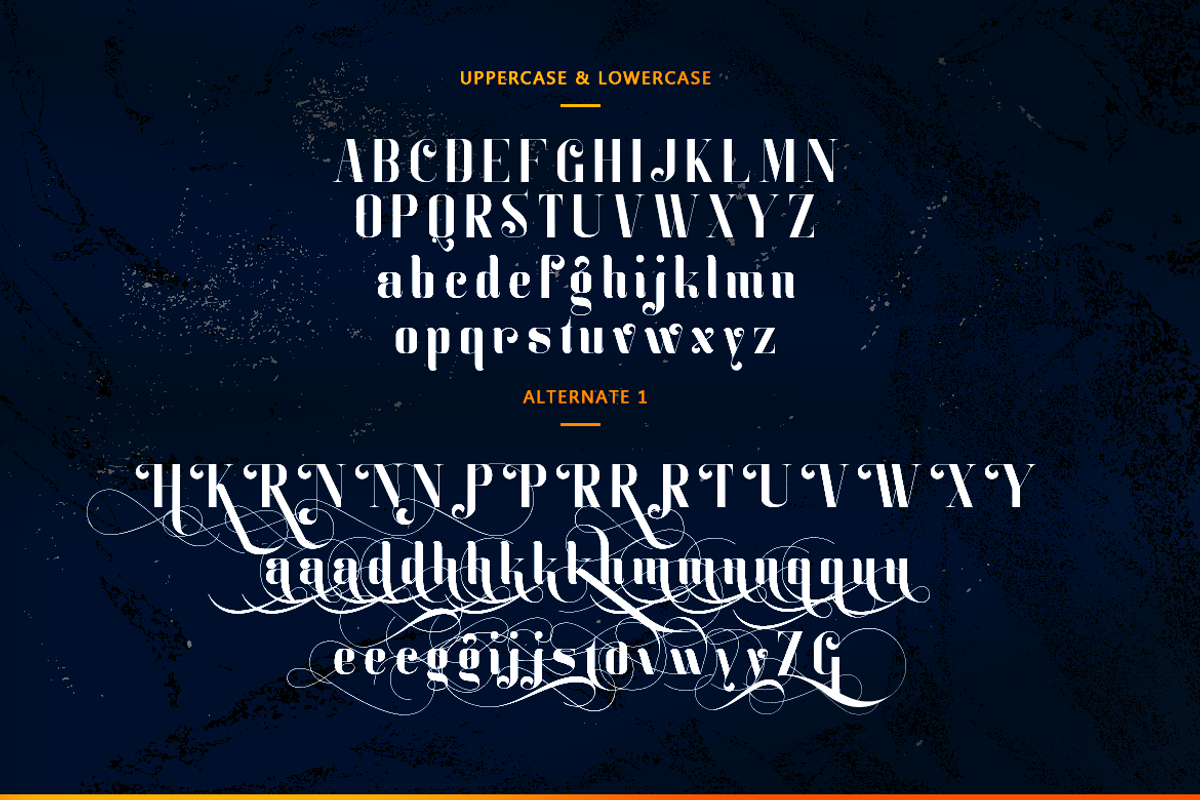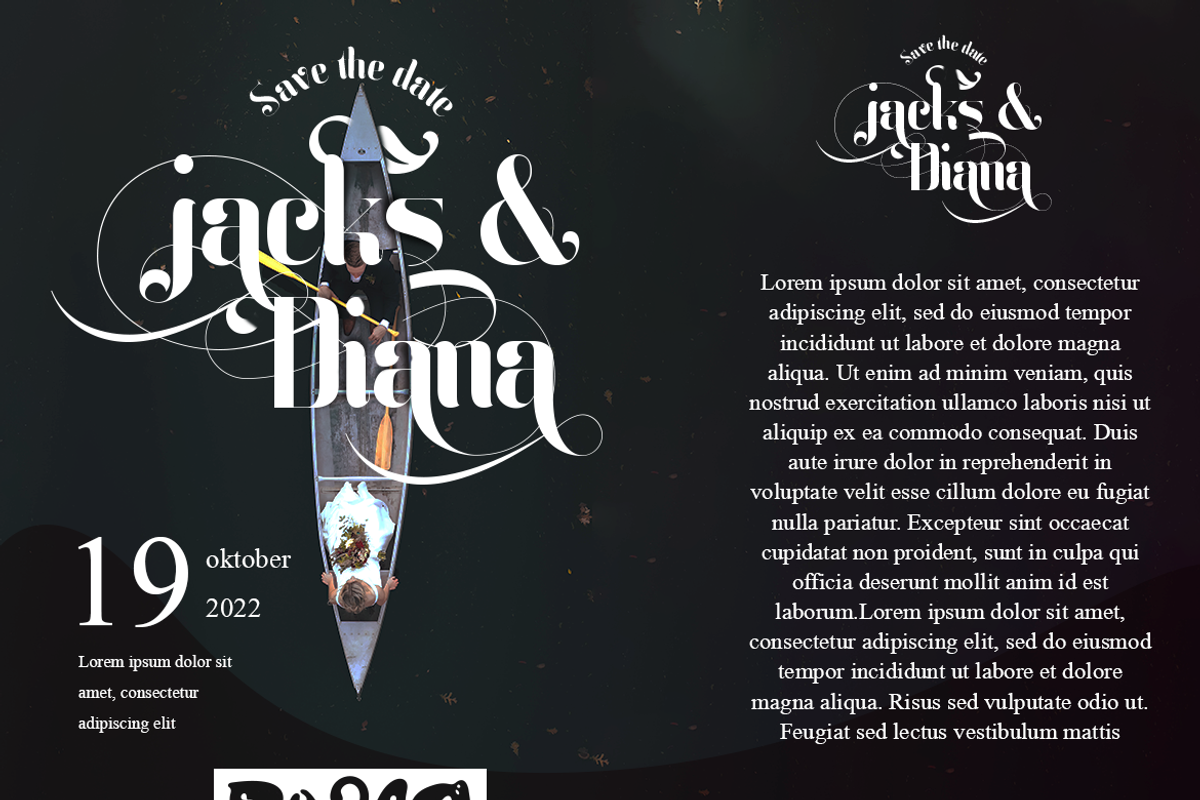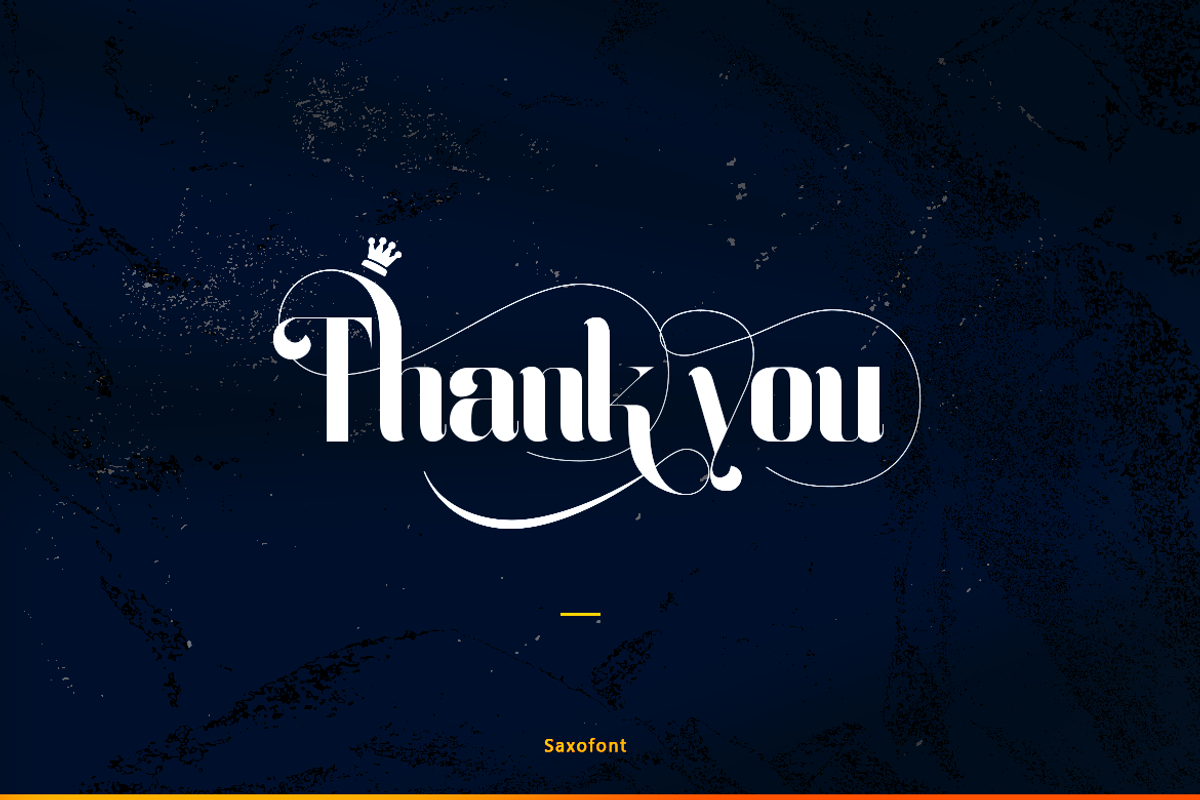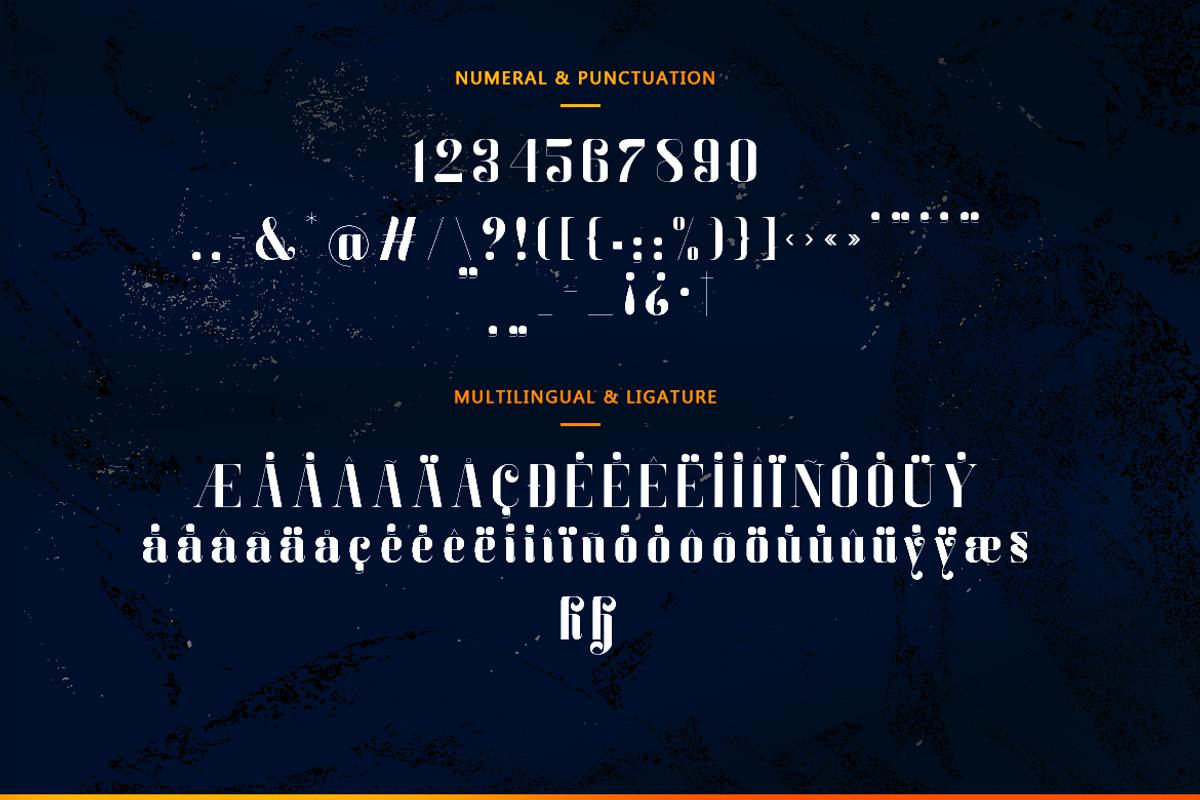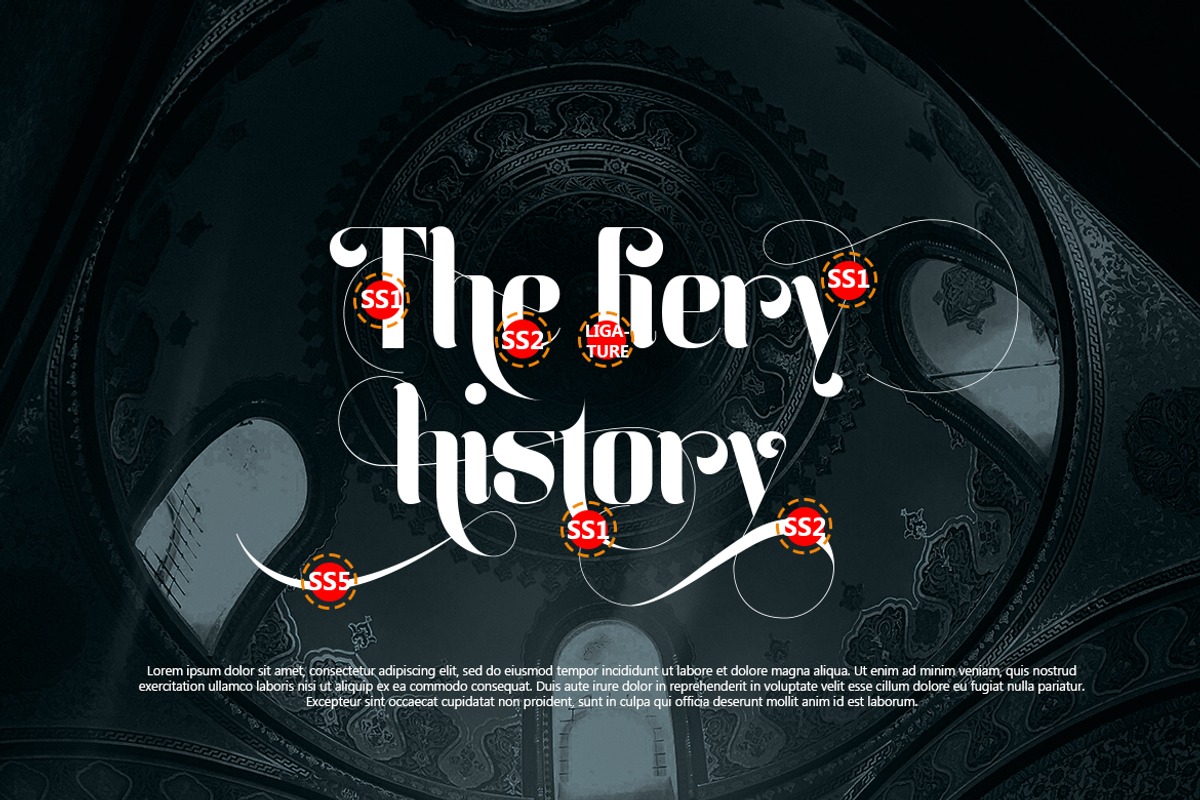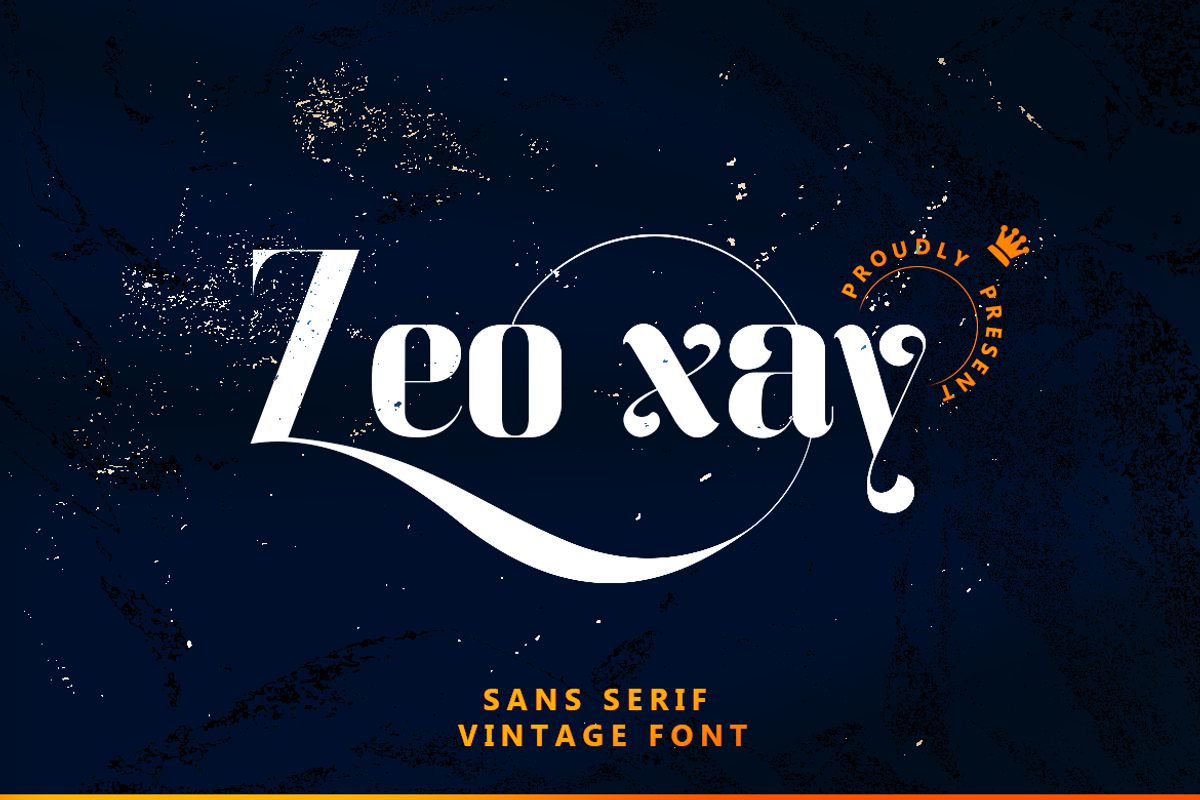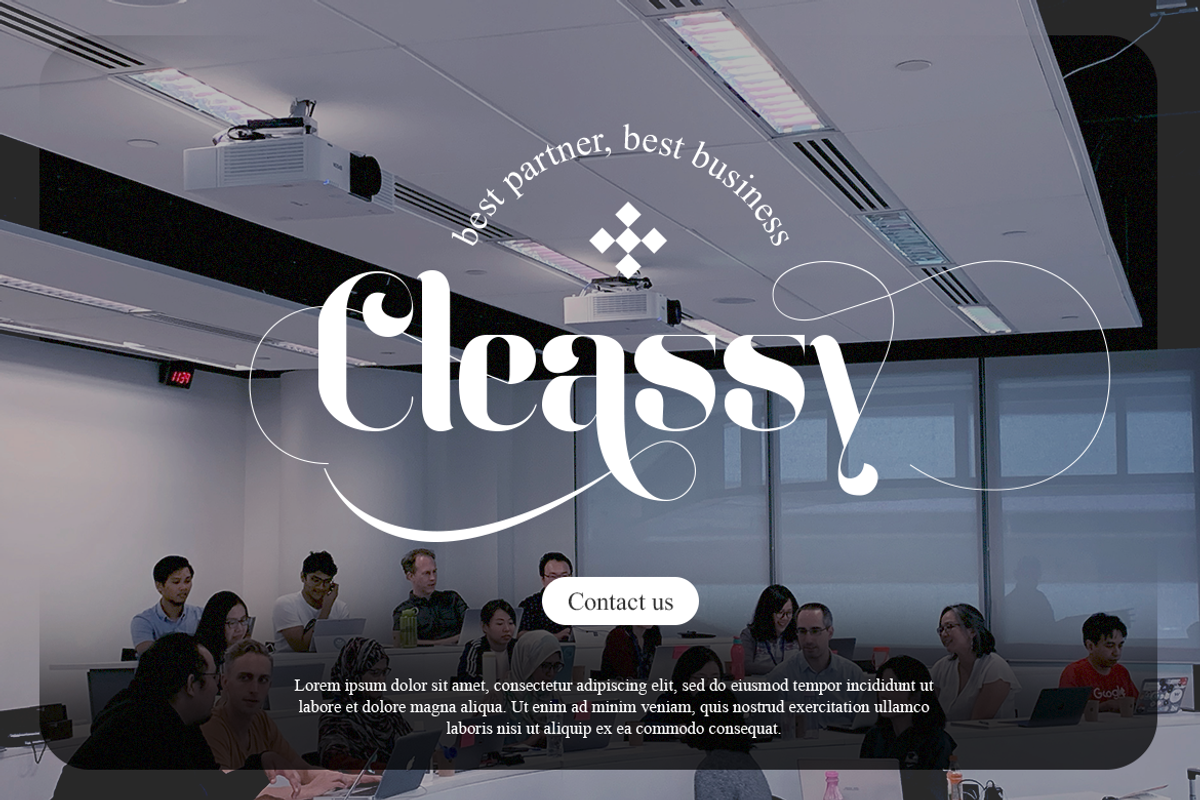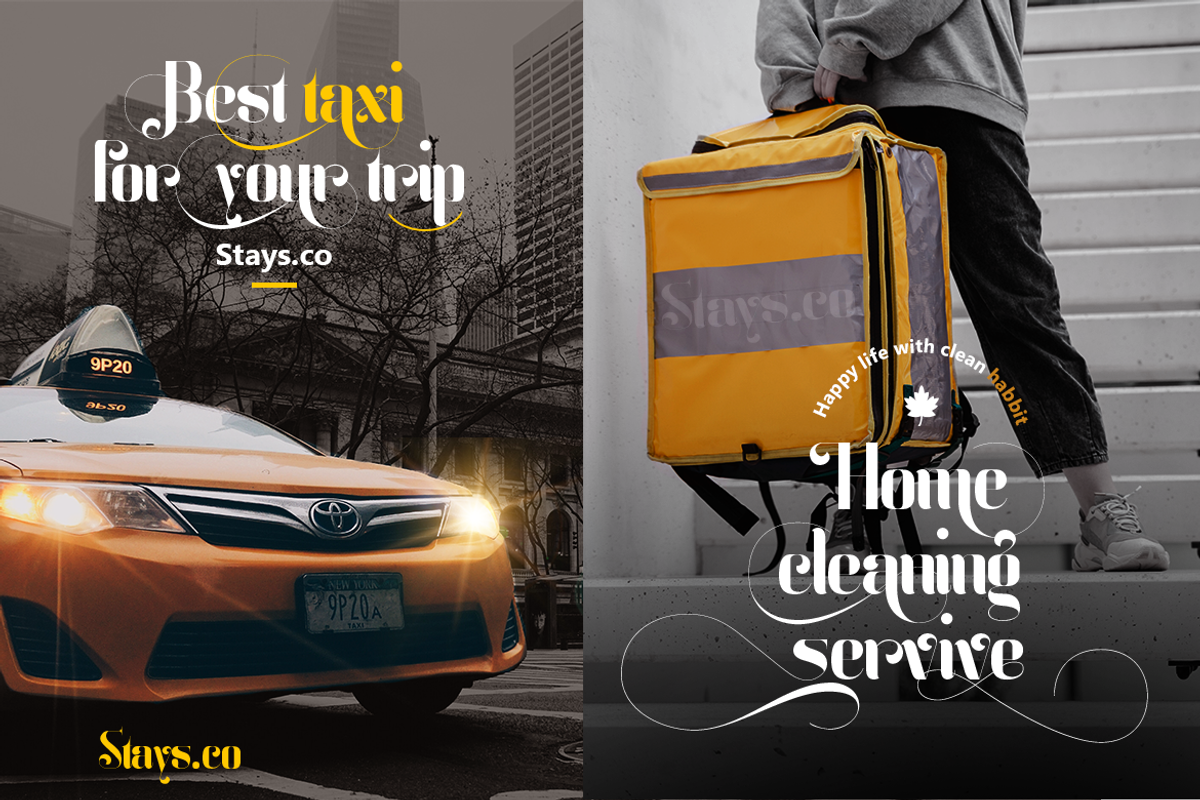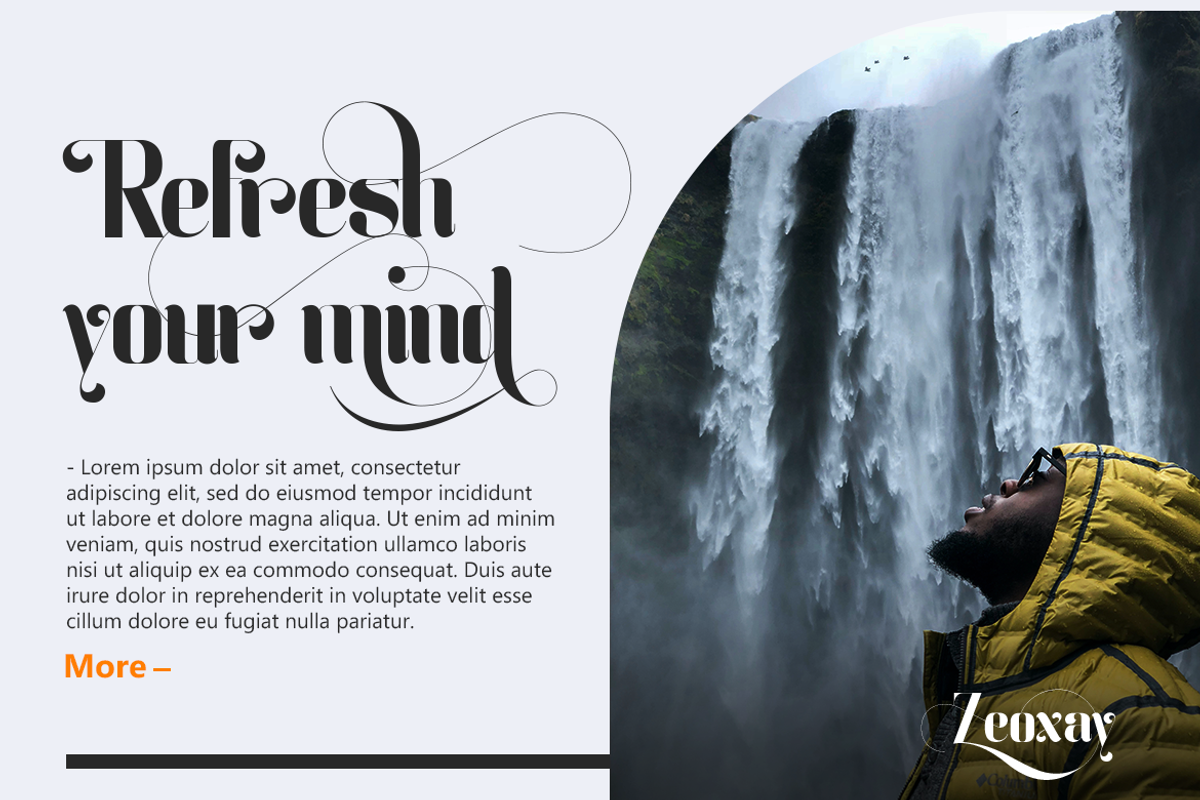
Zeo Xay - Sans Serif Font
Zeo Xay is bold and elegant serif font. Simple and easy to use, this font will be very beautiful if you mix it with your various craft designs. This font is PUA encoded which means you can access all of the glyphs and swashes with ease!